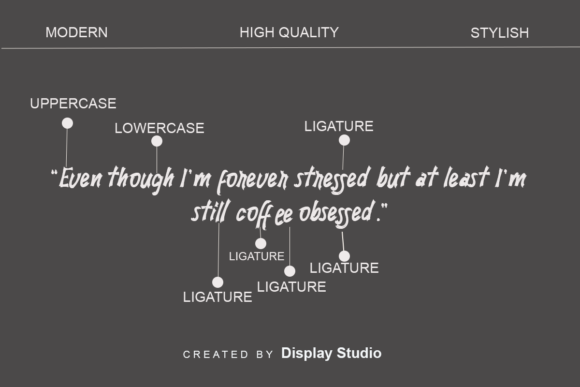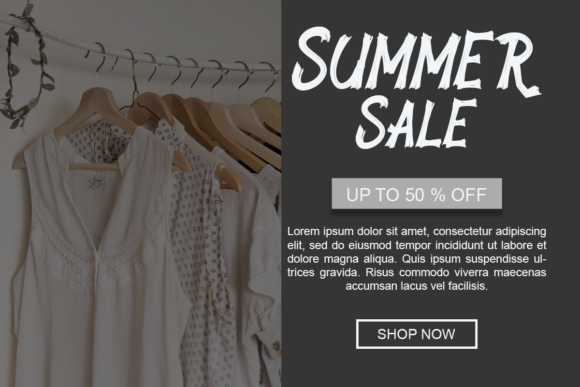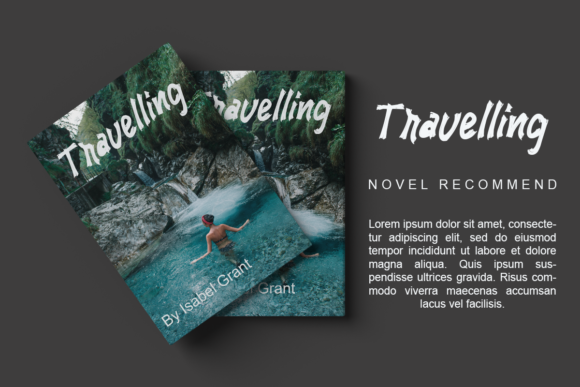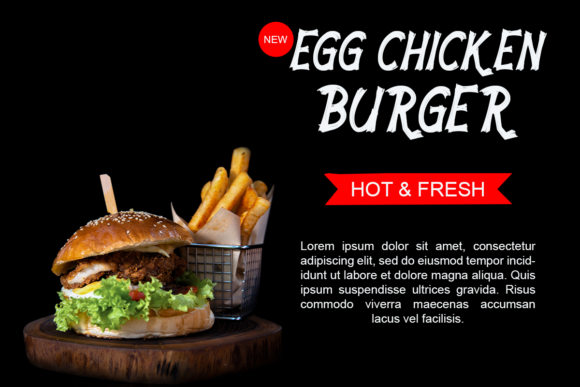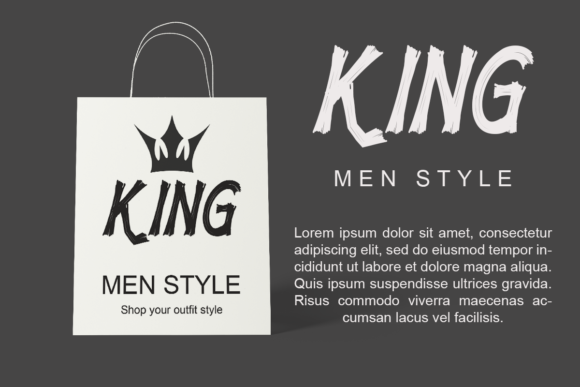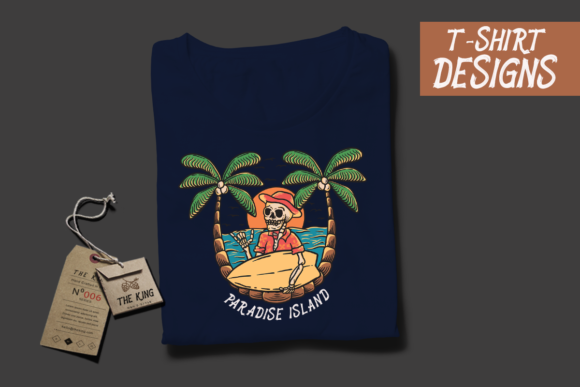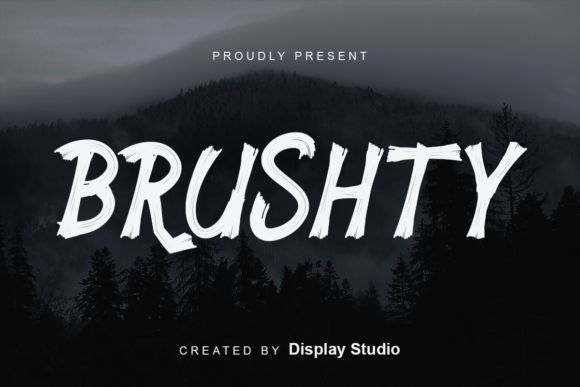
Introducing Brushty Font: The Cool and Urban Styled Display Font
Are you tired of using the same old fonts for your designs? Look no further! Brushty Font is here to revolutionize your creative projects with its cool and urban styled display font. Whether you’re a designer, crafter, or simply someone who loves to create, Brushty Font is the perfect addition to your font collection.
What is Brushty Font?
Brushty Font is a modern and trendy display font that is perfect for making a statement. Its unique and edgy design makes it stand out from the crowd, adding a touch of urban flair to any project. With its bold and eye-catching style, Brushty Font is ideal for a variety of creative projects, from digital designs to handmade crafts.
Uses of Brushty Font
So, what can you use Brushty Font for? The possibilities are endless! Here are some ideas to get you started:
- Crafts: Use Brushty Font to add a personal touch to your handmade crafts, such as scrapbooking, card making, or DIY projects.
- Digital Design: Add a cool and urban touch to your digital designs, including social media graphics, blog posts, or website headers.
- Presentations: Make your presentations stand out with Brushty Font, perfect for titles, headings, or emphasis text.
- Greeting Cards: Create unique and personalized greeting cards for any occasion, from birthdays to holidays.
Why You’ll Love Brushty Font
So, what makes Brushty Font so special? Here are just a few reasons why it’s sure to become your go-to font:
- Versatility: Brushty Font is perfect for a wide range of projects, from digital designs to handmade crafts.
- Easy to Read: Despite its bold and edgy design, Brushty Font is surprisingly easy to read, making it perfect for titles, headings, or emphasis text.
- Unique Style: Brushty Font has a one-of-a-kind style that’s sure to make your projects stand out from the crowd.
Tips for Using Brushty Font
To get the most out of Brushty Font, here are a few tips to keep in mind:
- Use it sparingly: Brushty Font is bold and eye-catching, so use it sparingly to avoid overwhelming your design.
- Experiment with colors: Brushty Font looks great in a variety of colors, so don’t be afraid to experiment and find the perfect hue for your project.
- Pair it with other fonts: Brushty Font pairs well with a variety of other fonts, so feel free to get creative and find the perfect combination for your project.
In conclusion, Brushty Font is a cool and urban styled display font that’s perfect for designers, crafters, and anyone who loves to create. With its unique and edgy design, versatility, and ease of use, Brushty Font is sure to become your go-to font for all your creative projects. So why wait? Give Brushty Font a try today and see the difference it can make in your designs!